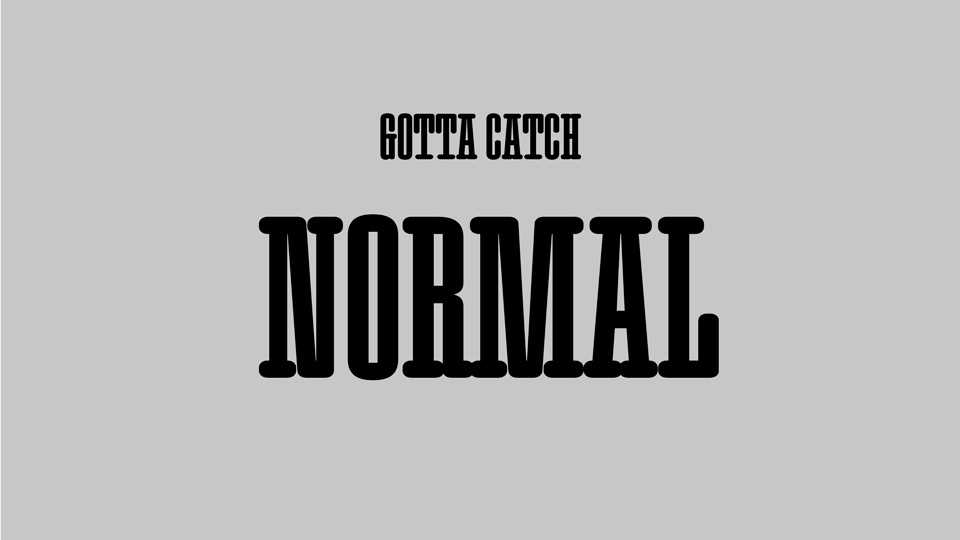
Download Gotta Catch Normal font, a basic rounded slab serif typeface designed during a type design initiation workshop given by Lucas Descroix in March 2021.